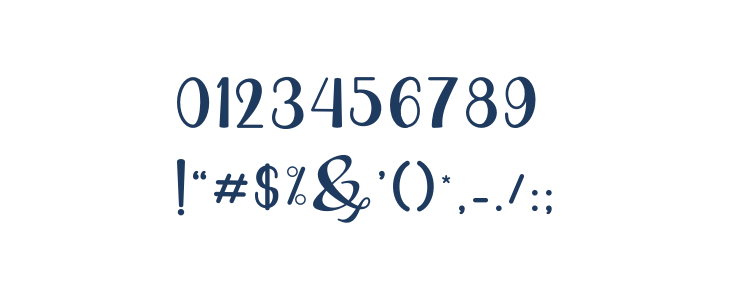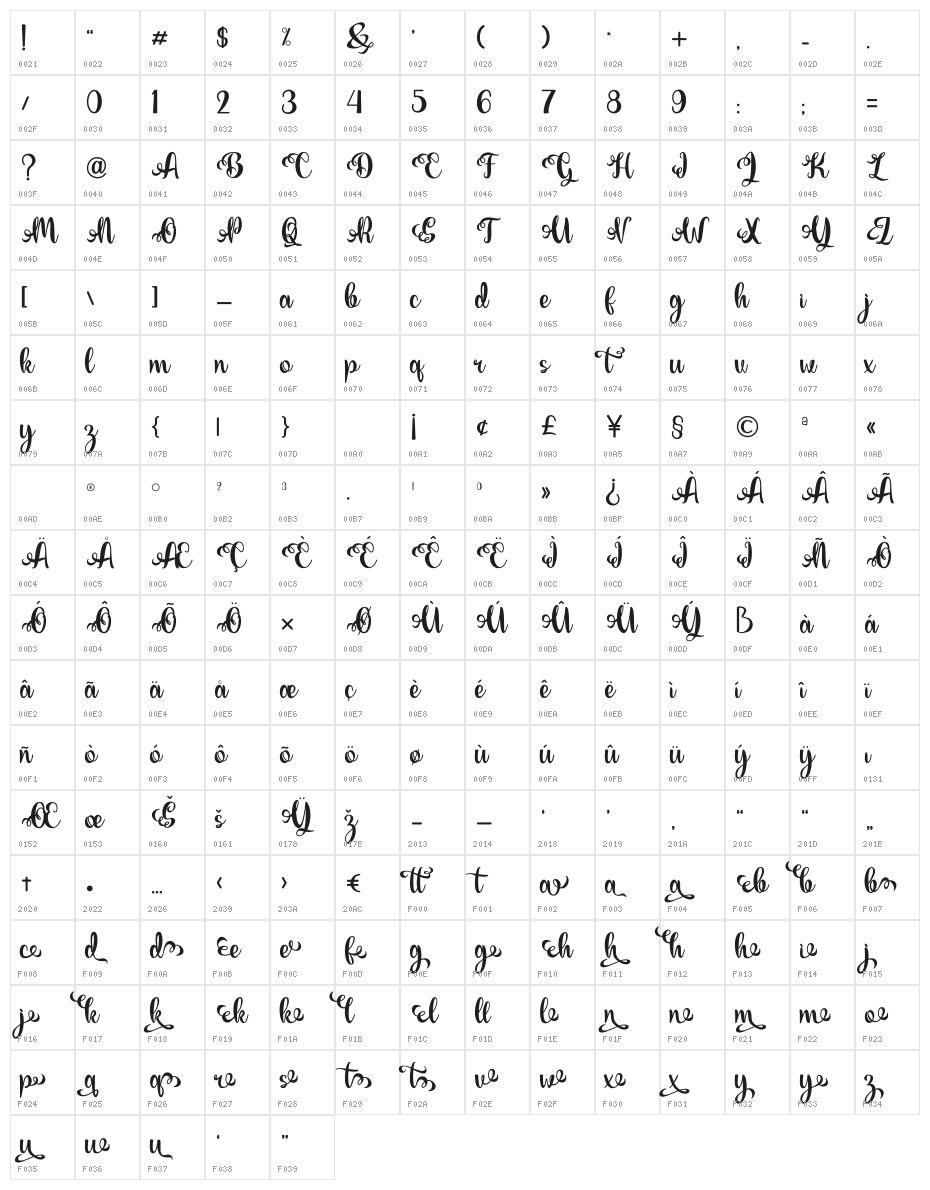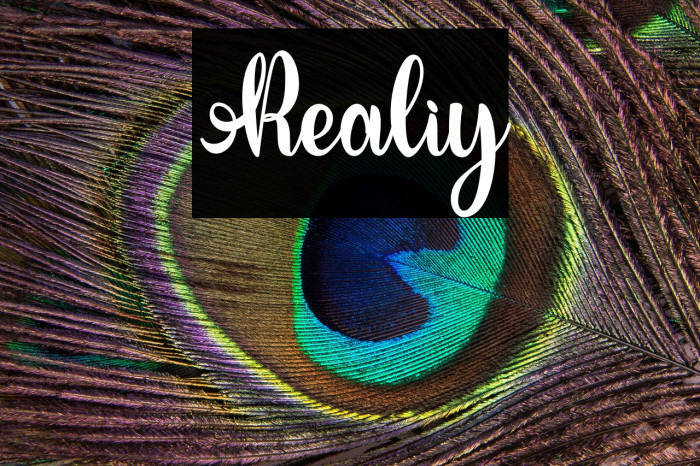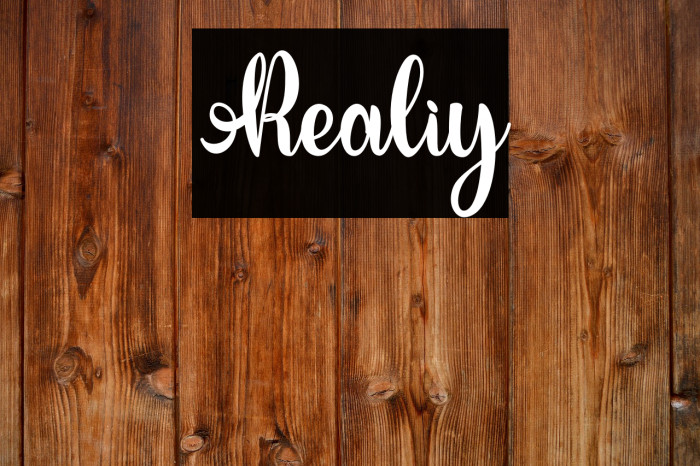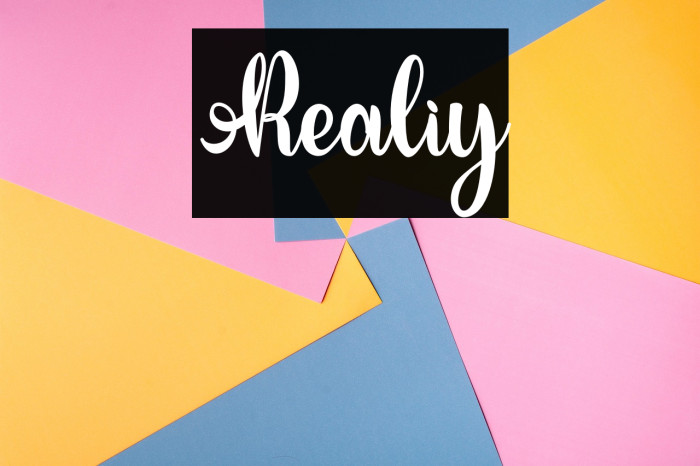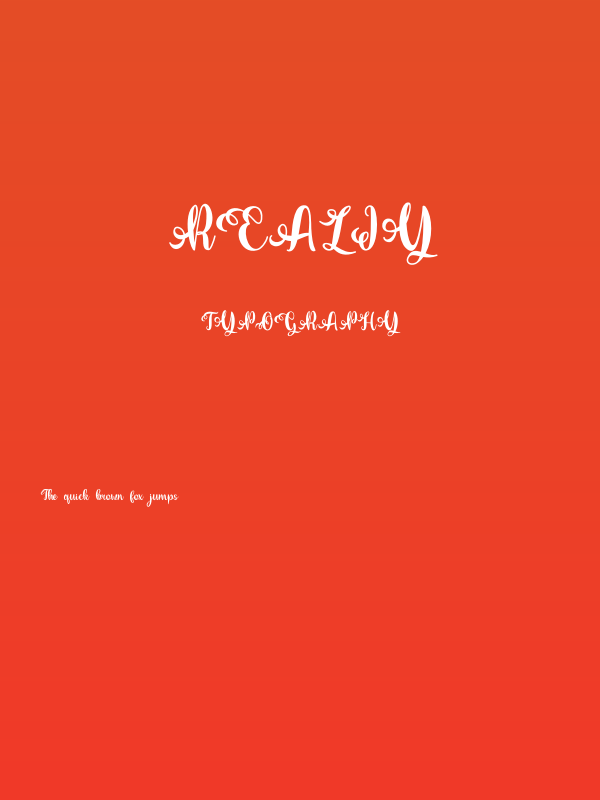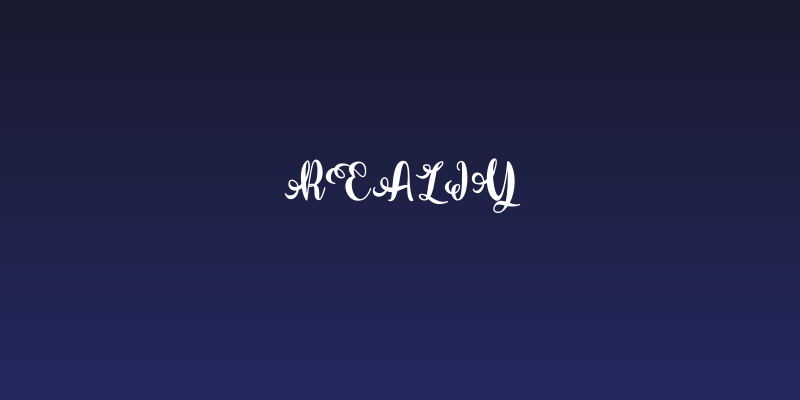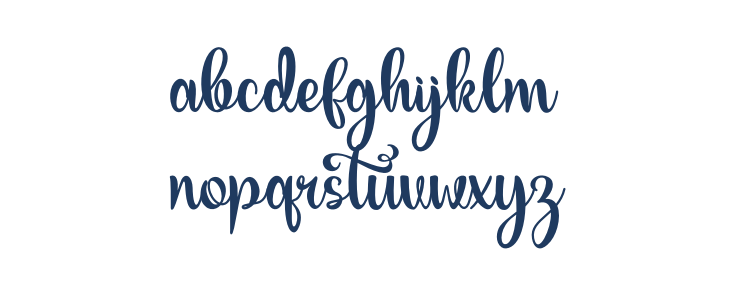
Realiy Font
Realiy Description
This font features a decorative and elegant script style with a playful and artistic flair. The uppercase letters are adorned with intricate swirls and loops, giving them a whimsical appearance. The lowercase letters maintain a cohesive flow with smooth, connected strokes that enhance readability while retaining a stylish look. The numerals are bold and clear, complementing the overall design with a touch of modernity. Special characters are crafted with the same attention to detail, ensuring consistency across the font. This font is perfect for projects that require a touch of sophistication and creativity.
| Use Case | Logos, Invitations, Decorative Text |
| Proposed Projects | Ideal for wedding invitations, greeting cards, branding, and logo design. |